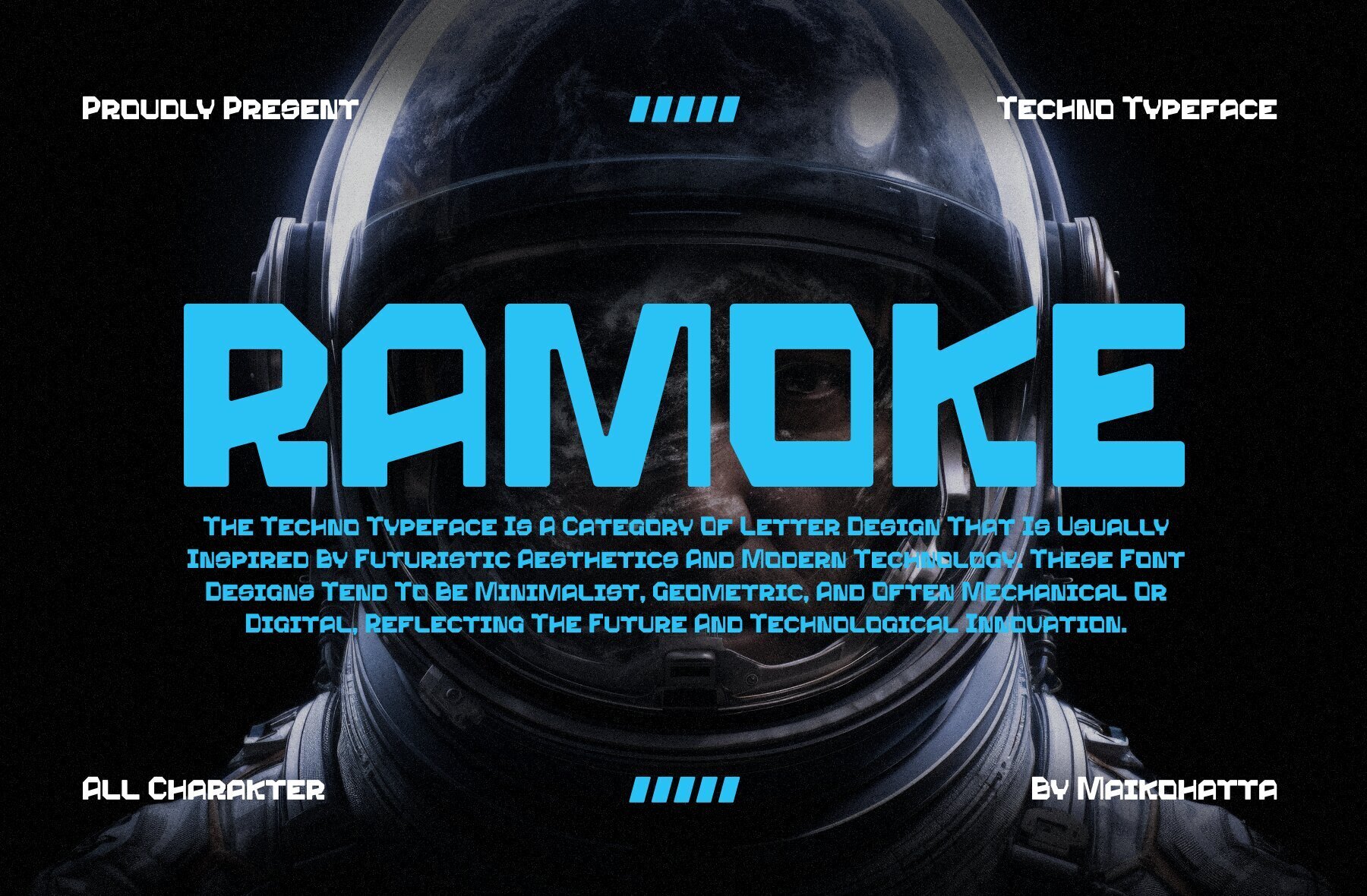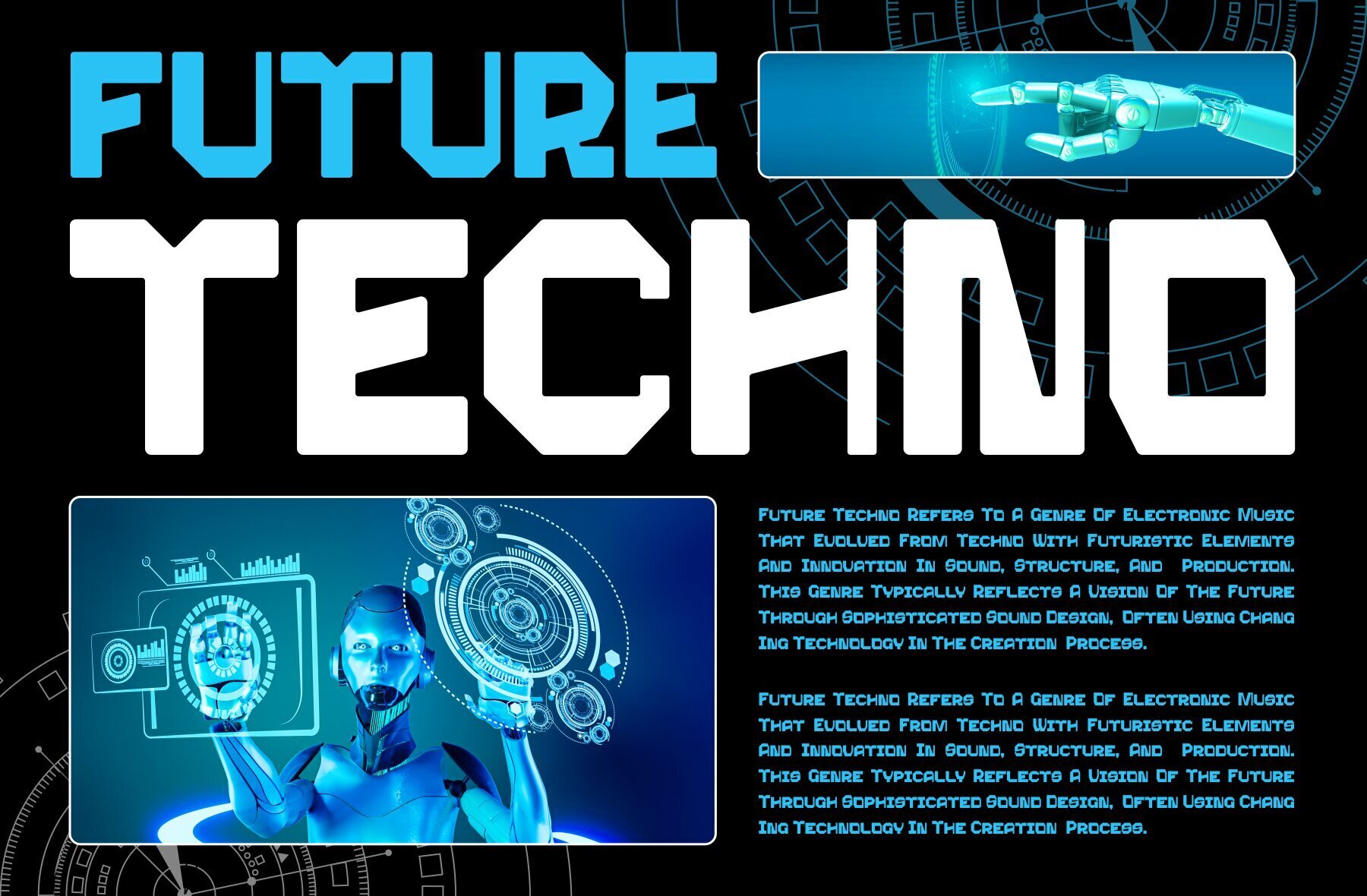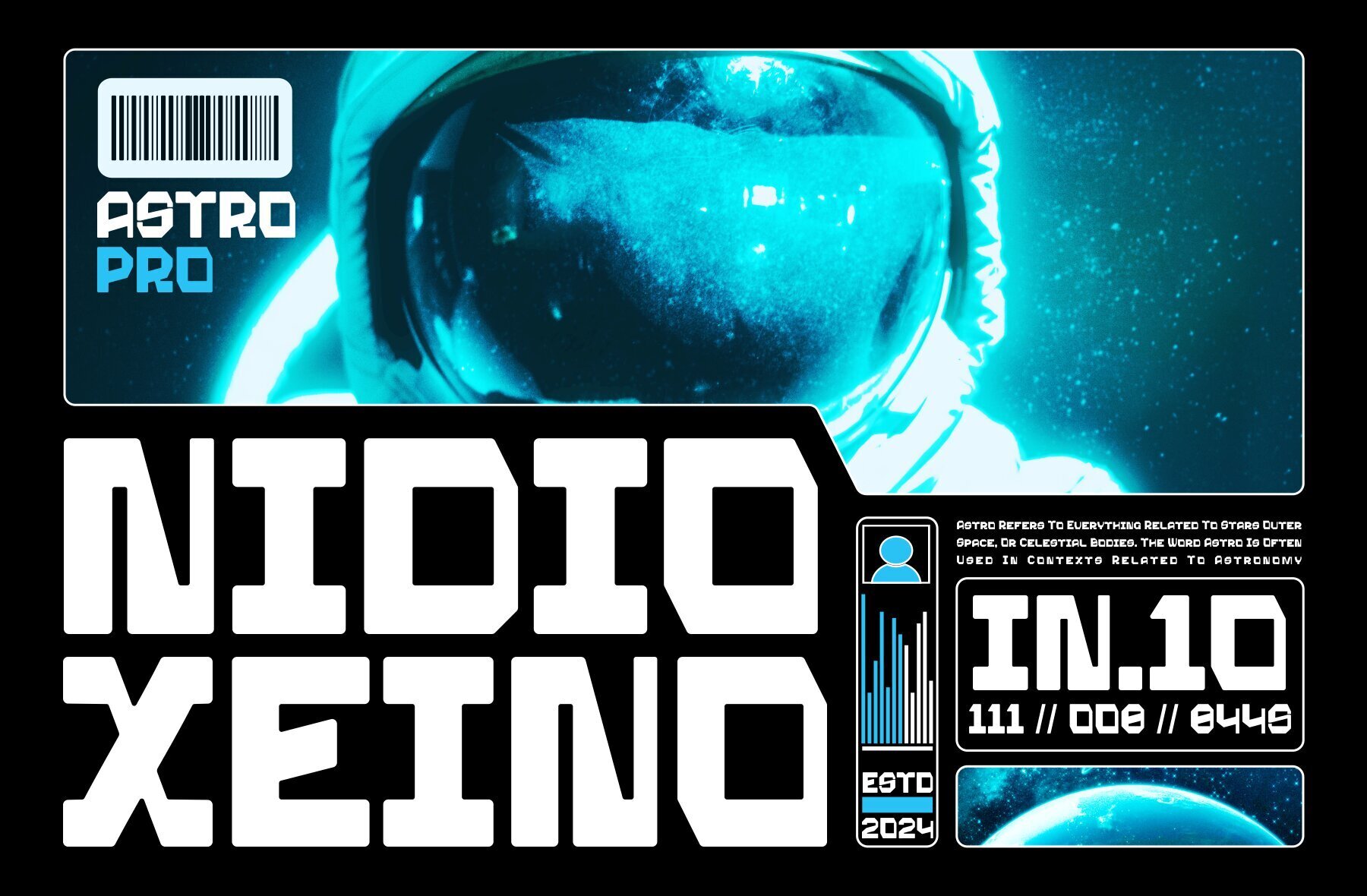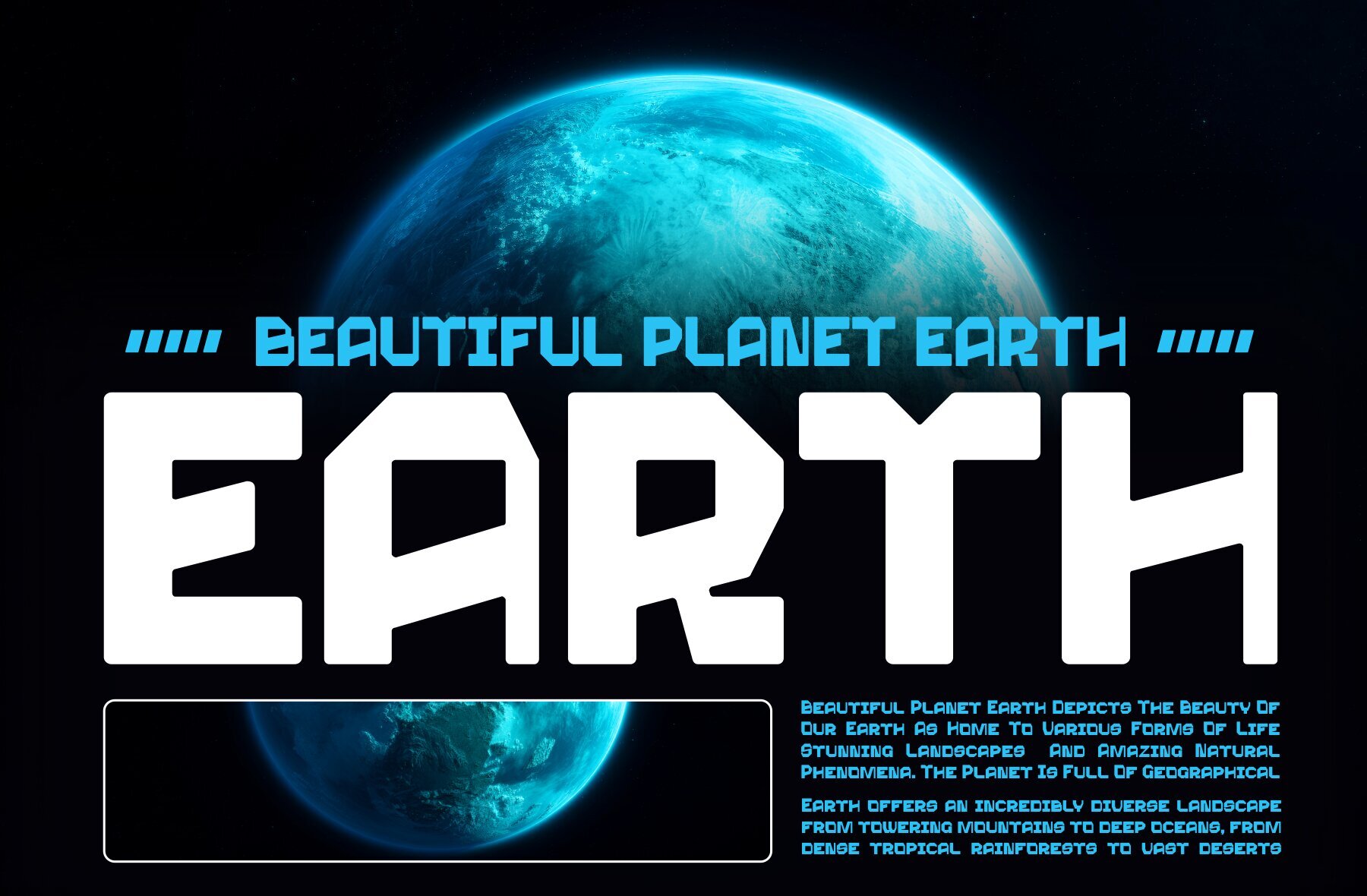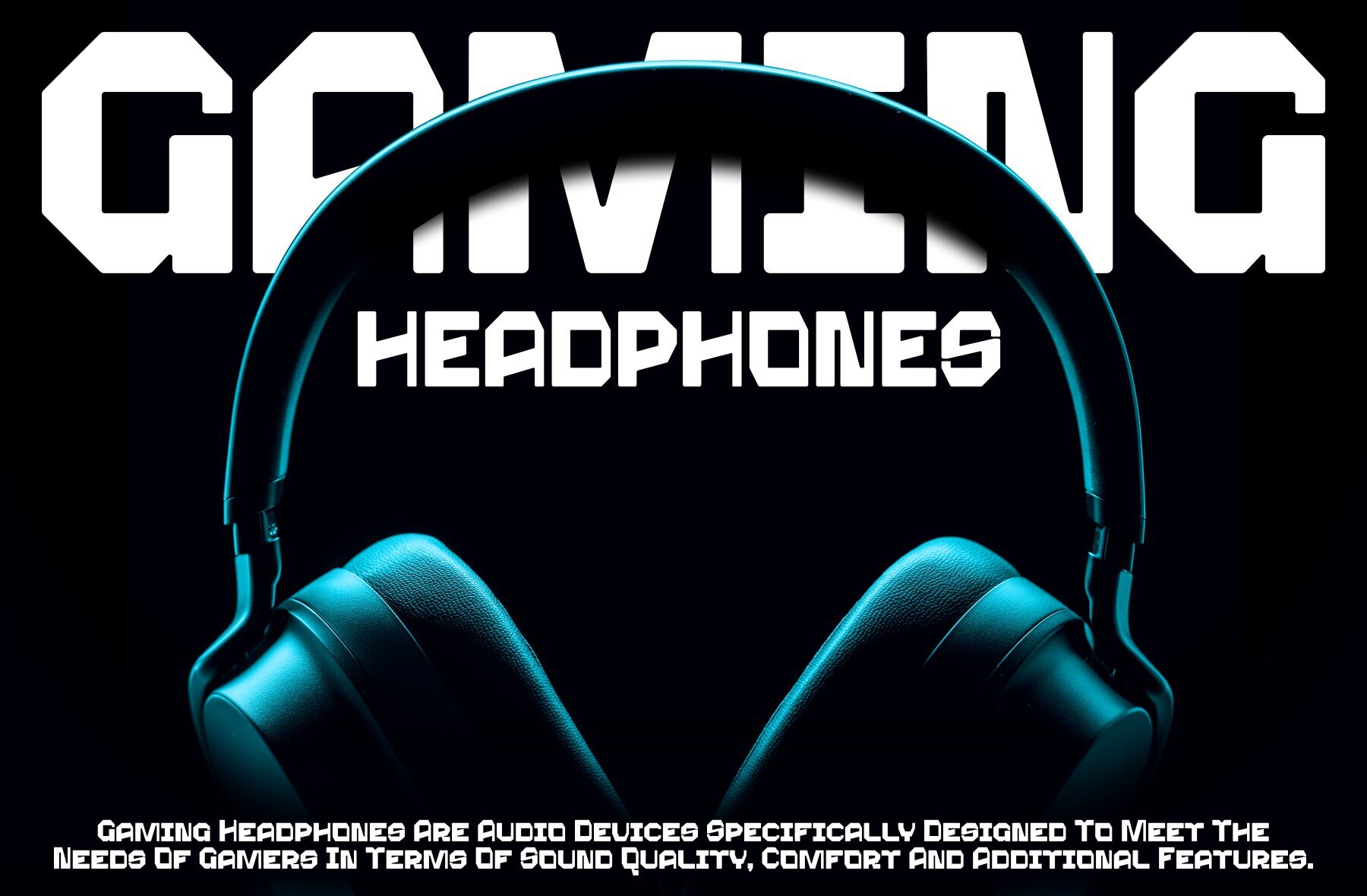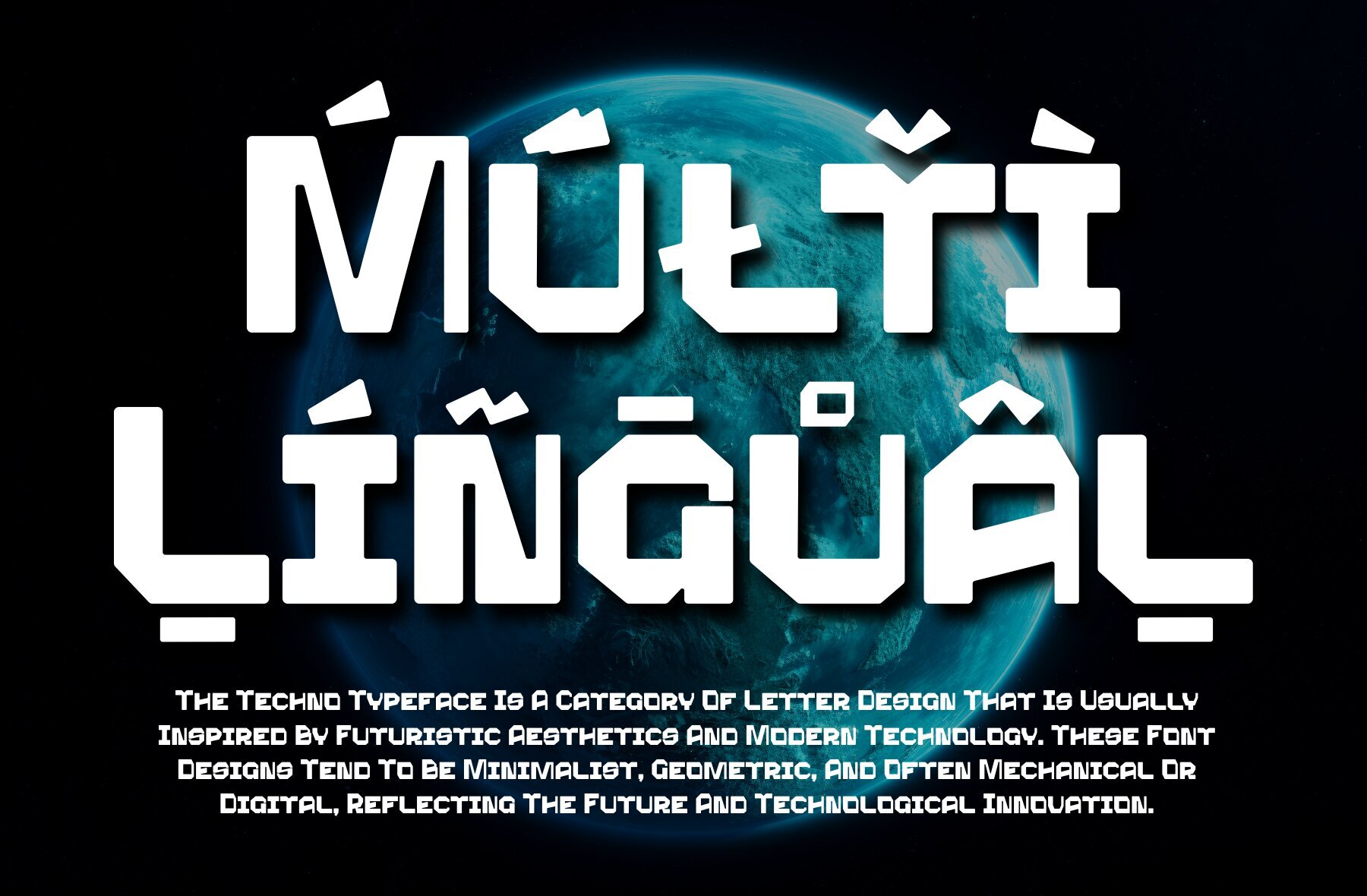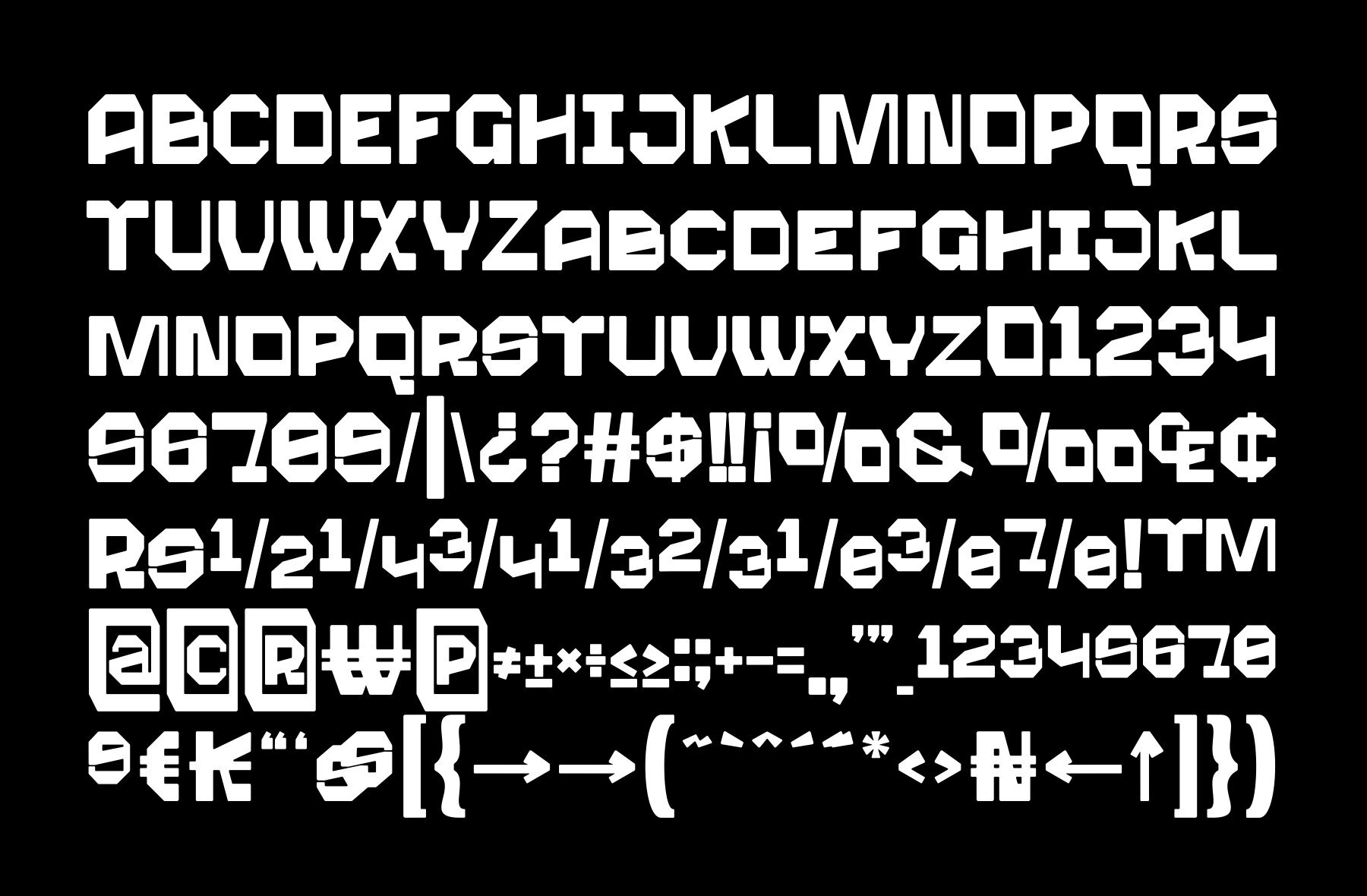
Ramoke Font
RAMOKE
Ramoke is a cutting-edge techno typeface designed to capture the essence of the digital age. Its futuristic design incorporates sharp lines and geometric shapes, making it an ideal choice for projects that revolve around technology, robotics, and science. This font exudes a contemporary vibe, channeling the spirit of innovation and modernity. The distinct style of Ramoke ensures that it brings a dynamic energy to any creative work, whether it is used in logos, website designs, or promotional posters.
Perfectly crafted for the modern lifestyle, Ramoke serves as a versatile tool in the designer's arsenal. Its futuristic elements lend themselves to a variety of creative applications that require a touch of technological sophistication. Whether you're designing for a tech startup, developing a science-oriented publication, or crafting digital artwork, this typeface adds a sleek and forward-thinking aesthetic to your projects.